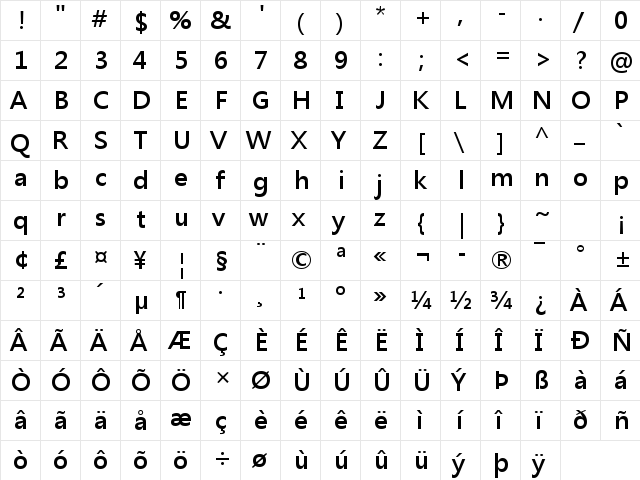
Microsoft JhengHei Bold Font Preview
Microsoft JhengHei Bold
Microsoft JhengHei Bold Font Details
| Foundry | Microsoft Corporation |
| Designer | Monotype Imaging Inc. |
Design Context for Microsoft JhengHei Typeface
Microsoft JhengHei offers clean, dependable letterforms without strong stylistic allegiance, making it a practical choice for designers who need flexibility. The heavy weight commands attention and anchors typographic hierarchies.